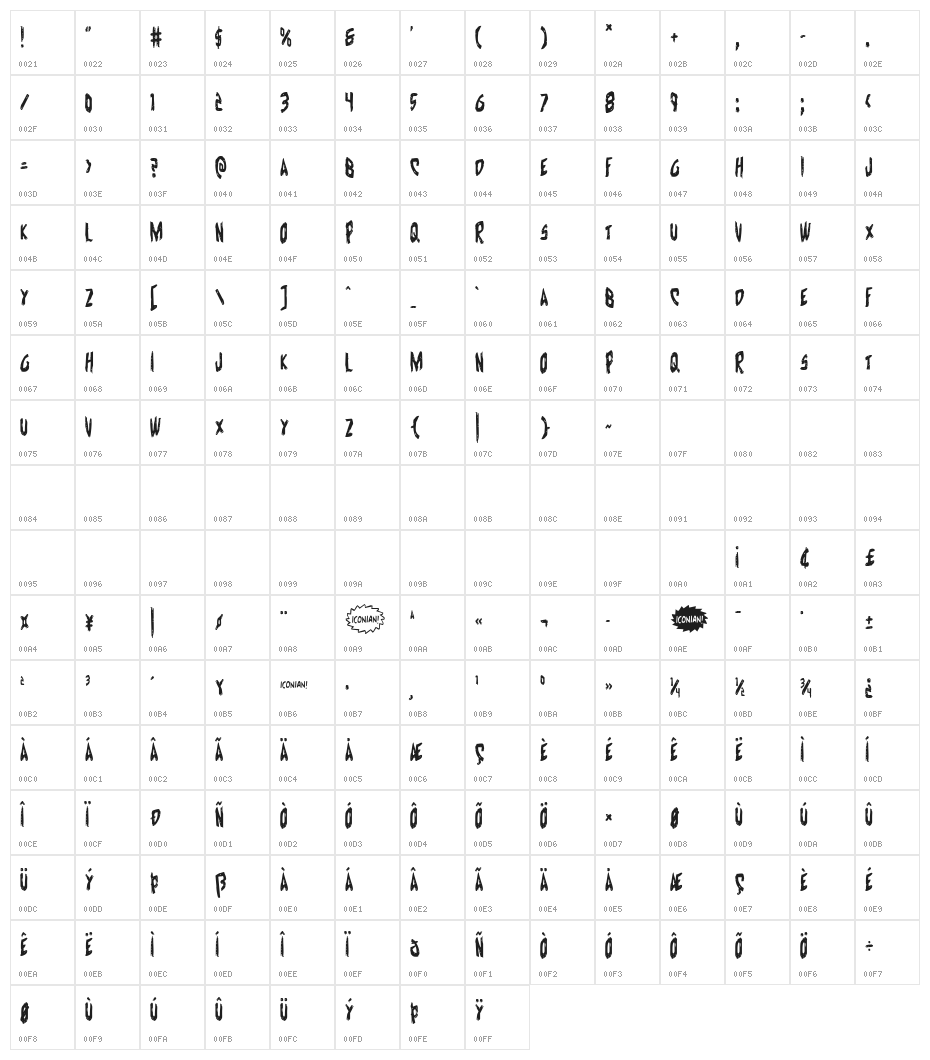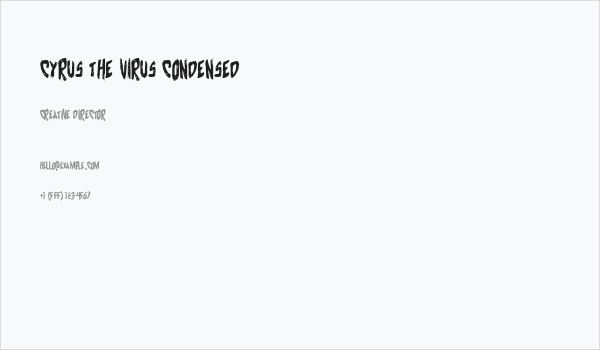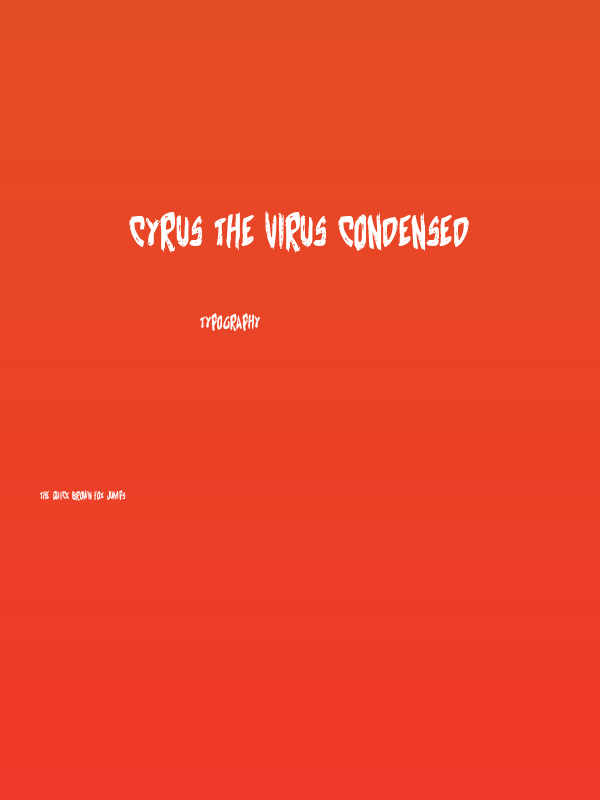
Cyrus the Virus Condensed Font
Cyrus the Virus Condensed Description
This font features a bold, distressed style with jagged edges and a grungy appearance. The characters are condensed, giving them a compact look while maintaining a strong visual impact. The uppercase and lowercase letters share a similar rugged texture, creating a cohesive aesthetic. Numbers and special characters are equally stylized, contributing to the font's edgy and rebellious vibe. The overall design is reminiscent of graffiti or street art, making it ideal for projects that require a bold, unconventional look.
| Proposed Projects | Perfect for album covers, posters, streetwear branding, or any project needing an edgy, rebellious touch. |